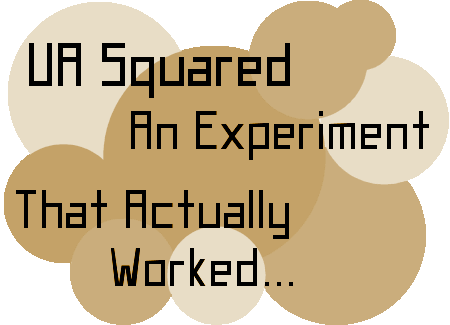
His idea of font-making was somewhat different from mine. So I tried it out. After making some basic shapes, I juggled them up some to make this font.
I have included uppercase, lowercase, numbers, most punctuation, no special characters, but a few foreign characters.